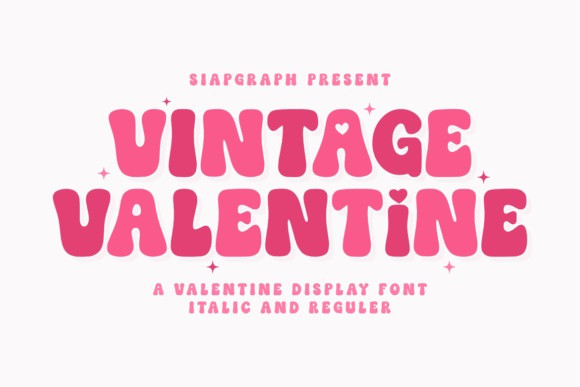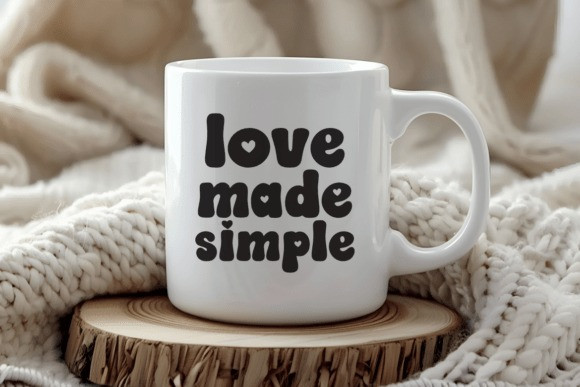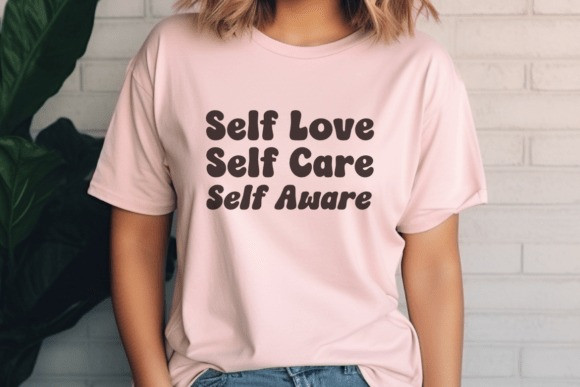
Vintage Valentine Display Font
Vintage Valentine Display Font a soft, bubbly display typeface that perfectly blends retro groovy vibes with romantic charm.The Vintage Valentine typeface is defined by its plush, rounded letterforms and darling heart-shaped negative spaces, making it an essential tool for Valentine’s Day cards, boutique branding, and feminine apparel design. Available in both regular and italic styles, the Vintage Valentine font offers versatility for everything from editorial headers to delicate packaging.
Pair the Vintage Valentine typeface with soft pinks and creams or grainy textures to enhance its 1970s romantic aesthetic. It is the ideal choice for projects that need to feel warm, approachable, and deeply sentimental without losing that trendy, vintage edge.